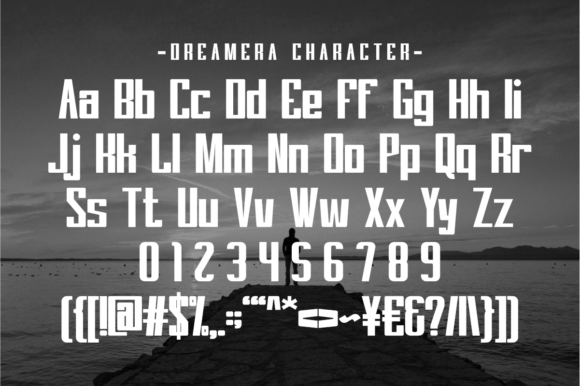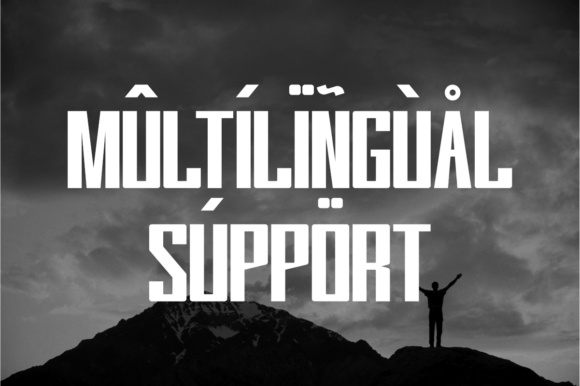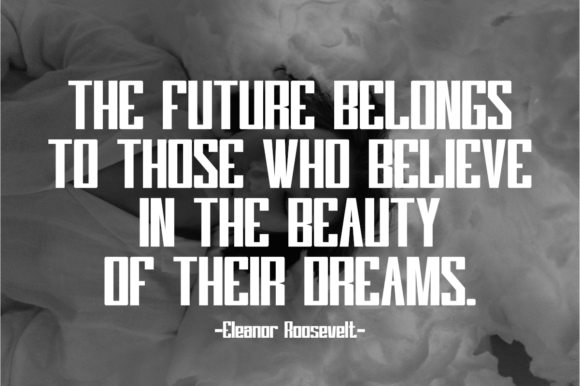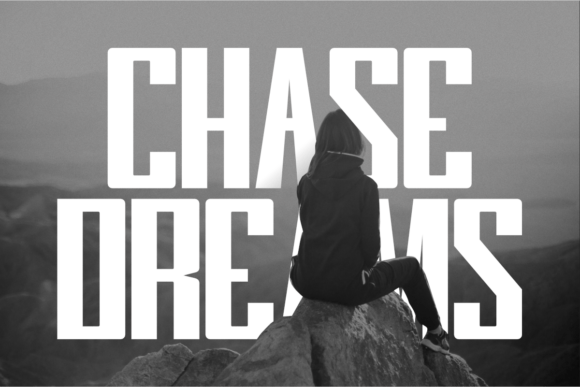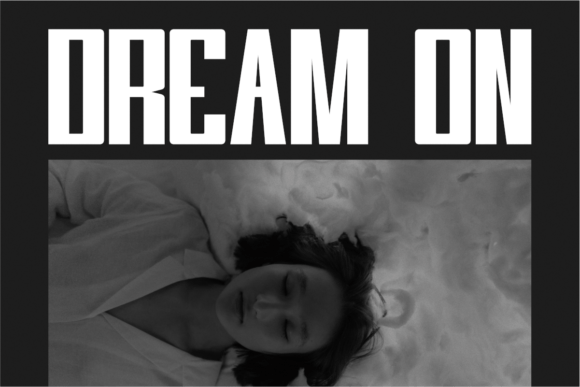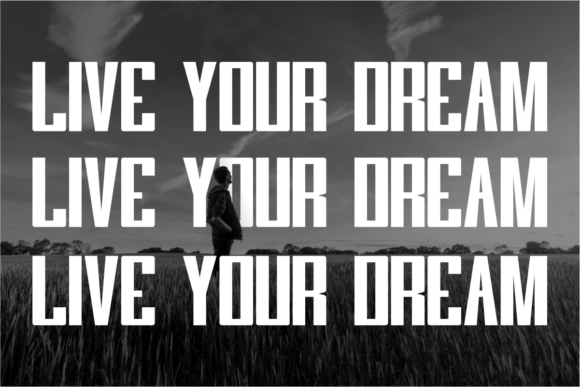
Dreamera Font: Elevate Your Designs with a Modern and Clean Condensed Sans Serif
In the world of typography, fonts play a crucial role in conveying messages, expressing creativity, and establishing brand identity. For designers and crafters, finding the perfect font that combines style, elegance, and versatility can be a daunting task. However, if you’re looking for a modern and clean condensed sans serif font that can elevate your designs, look no further than Dreamera Font.
What is Dreamera Font?
Dreamera Font is a sleek and contemporary sans serif font designed to make a statement. Its condensed proportions make it highly efficient for headlines and titles, allowing you to create impactful statements in limited space. With its clean lines and minimalist style, Dreamera Font adds a fresh, elegant touch to your creative projects, making it ideal for crafting, branding, and more.
Key Features of Dreamera Font
- Modern and Clean Design: Dreamera Font boasts a modern and clean design that exudes elegance and sophistication. Its sleek lines and minimalist style ensure that your designs look fresh and contemporary.
- Condensed Proportions: The font’s condensed proportions make it perfect for headlines and titles, allowing you to create impactful statements in limited space.
- Highly Versatile: Dreamera Font is highly versatile and can be used for a wide range of creative projects, including crafting, branding, packaging, and more.
- Elegant Touch: The font’s elegant design adds a touch of sophistication to your designs, making them stand out from the crowd.
Benefits of Using Dreamera Font
So, why should you choose Dreamera Font for your creative projects? Here are some benefits of using this amazing font:
- Save Time: With Dreamera Font, you can create stunning headlines and titles in no time. Its condensed proportions and clean design make it easy to use and customize.
- Enhance Your Brand: Dreamera Font can help you establish a strong brand identity. Its modern and clean design ensures that your brand looks professional and elegant.
- Increase Engagement: The font’s elegant design and condensed proportions make it perfect for creating attention-grabbing headlines and titles that engage your audience.
- Easy to Read: Dreamera Font is highly legible, making it easy for your audience to read and understand your message.
How to Use Dreamera Font
Using Dreamera Font is easy and straightforward. Here are some tips to get you started:
- Headlines and Titles: Use Dreamera Font for headlines and titles to create a lasting impression.
- Branding: Use the font for your brand identity to establish a professional and elegant look.
- Crafting: Use Dreamera Font for crafting projects, such as making signs, cards, and other DIY projects.
- Digital and Print: Use the font for both digital and print projects, including brochures, flyers, posters, and more.
In conclusion, Dreamera Font is a modern and clean condensed sans serif font that offers a sleek and contemporary aesthetic. Its condensed proportions, clean lines, and minimalist style make it perfect for headlines, titles, and creative projects. With its highly versatile design, Dreamera Font is ideal for crafting, branding, and more. So, why wait? Download Dreamera Font today and elevate your designs to the next level!
- What is the style of Dreamera Font? Dreamera Font is a modern and clean condensed sans serif font.
- What is Dreamera Font ideal for? Dreamera Font is ideal for crafting, branding, headlines, titles, and creative projects.